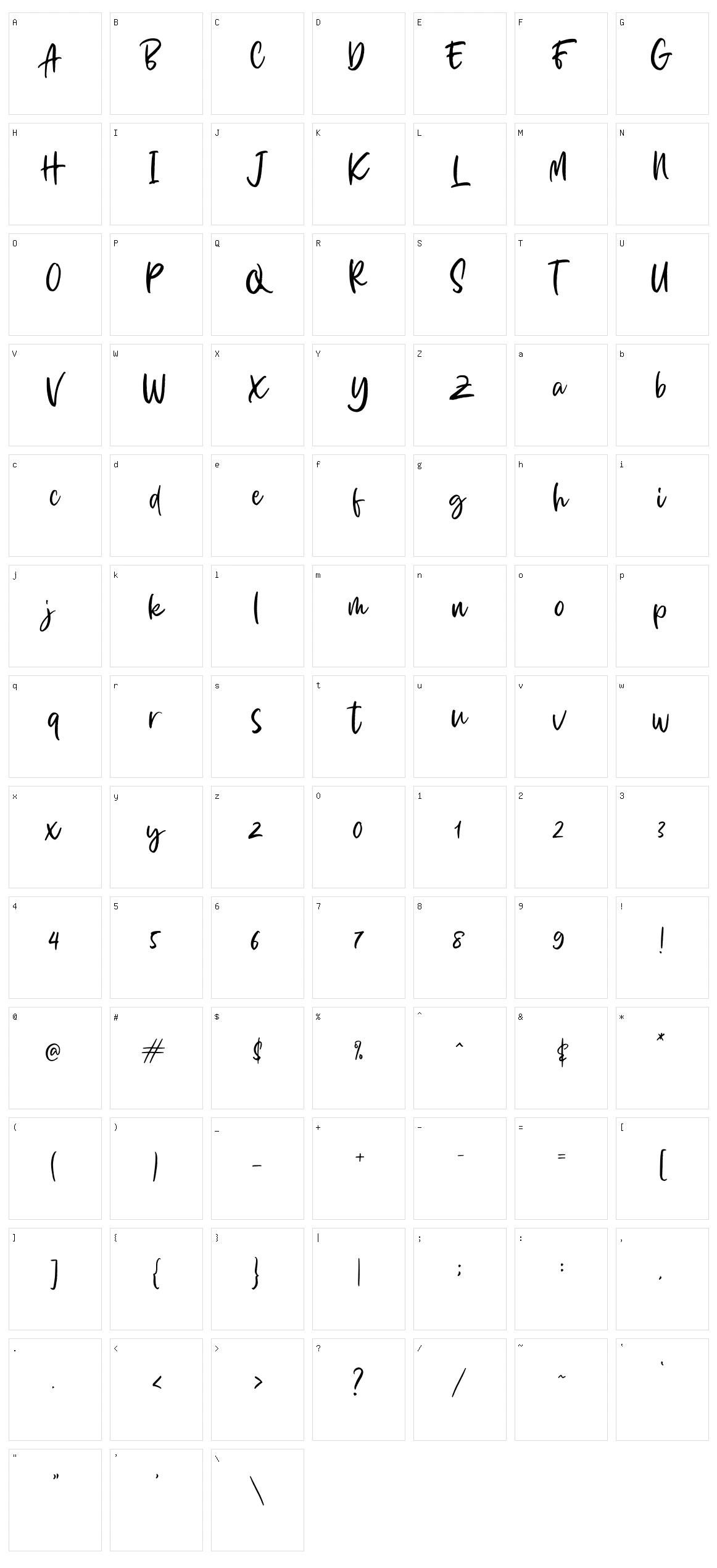
The free font Bella Millies is carefully designed by Masanis Studio, showcasing a thoughtful balance of creativity and usability and falls under the Script font style. When you download the ZIP file, it contains only 114.87 KB of font files, making it lightweight and quick to download. Please review the license details below to understand permitted usage and distribution rights. If license information is not available, we recommend using this font for personal projects only or contacting the author directly for commercial usage permissions.